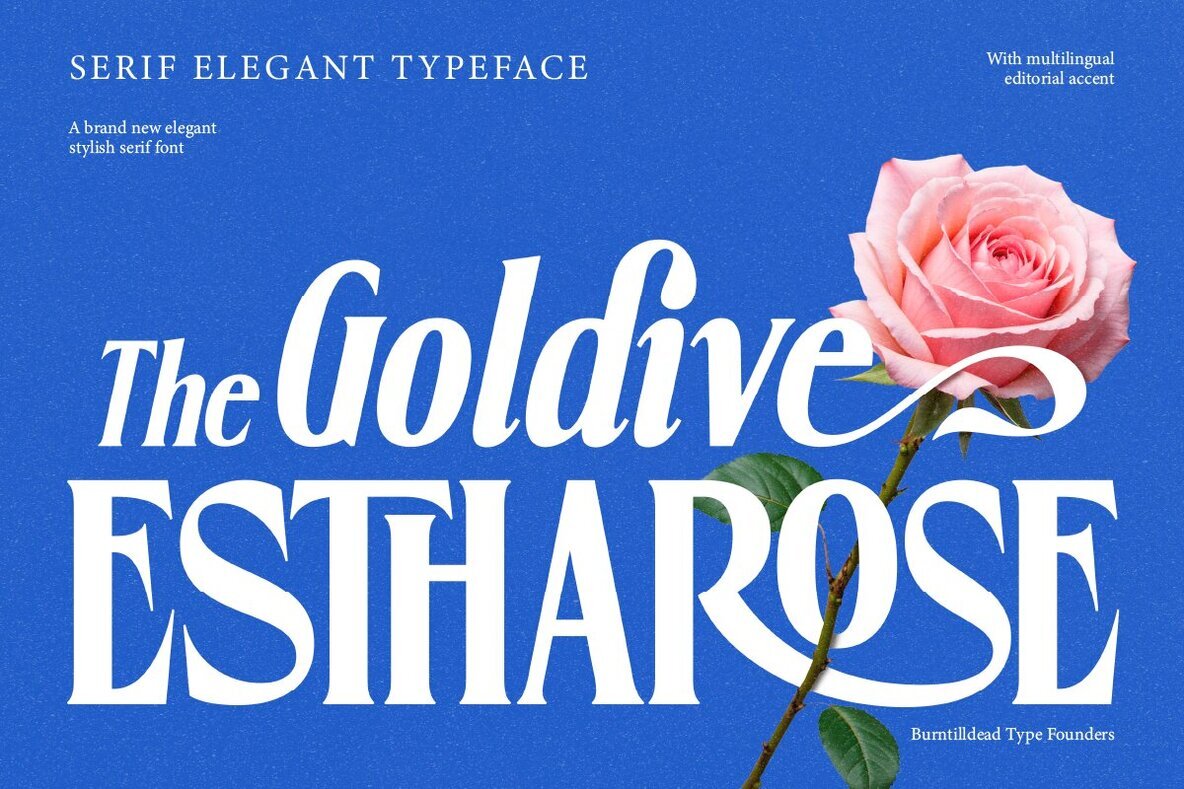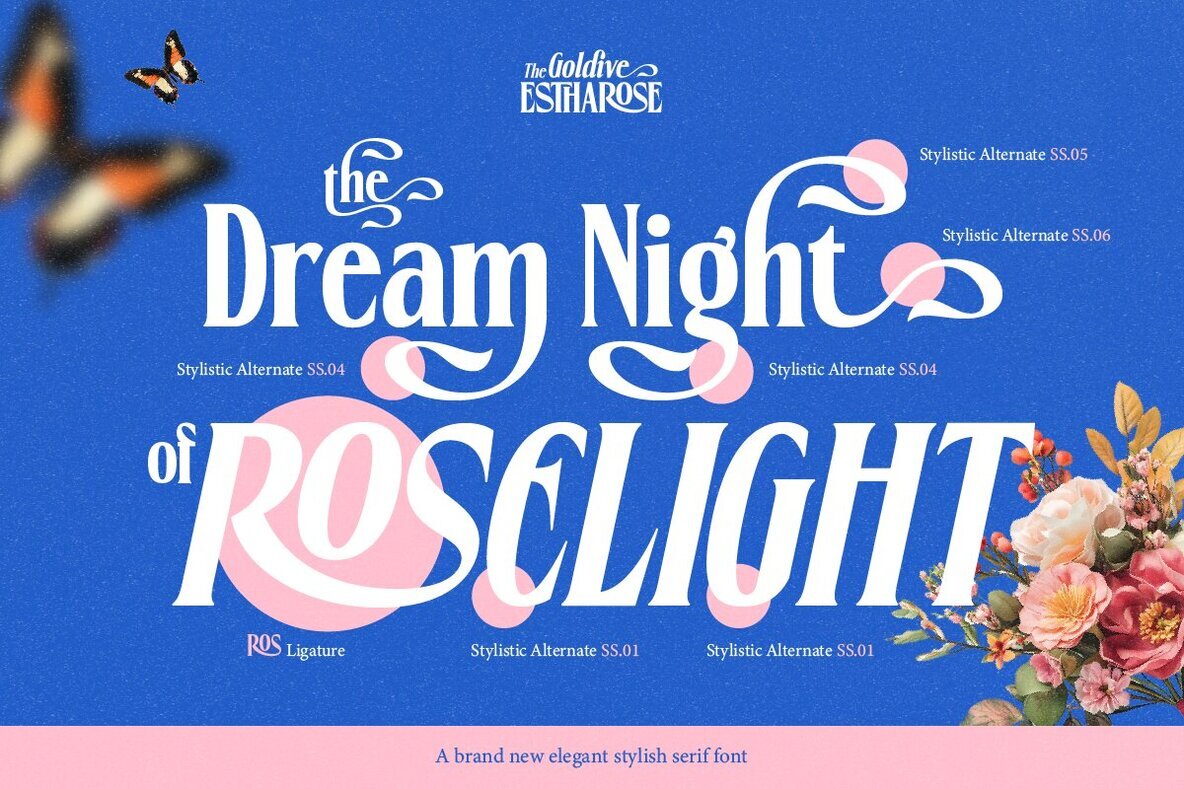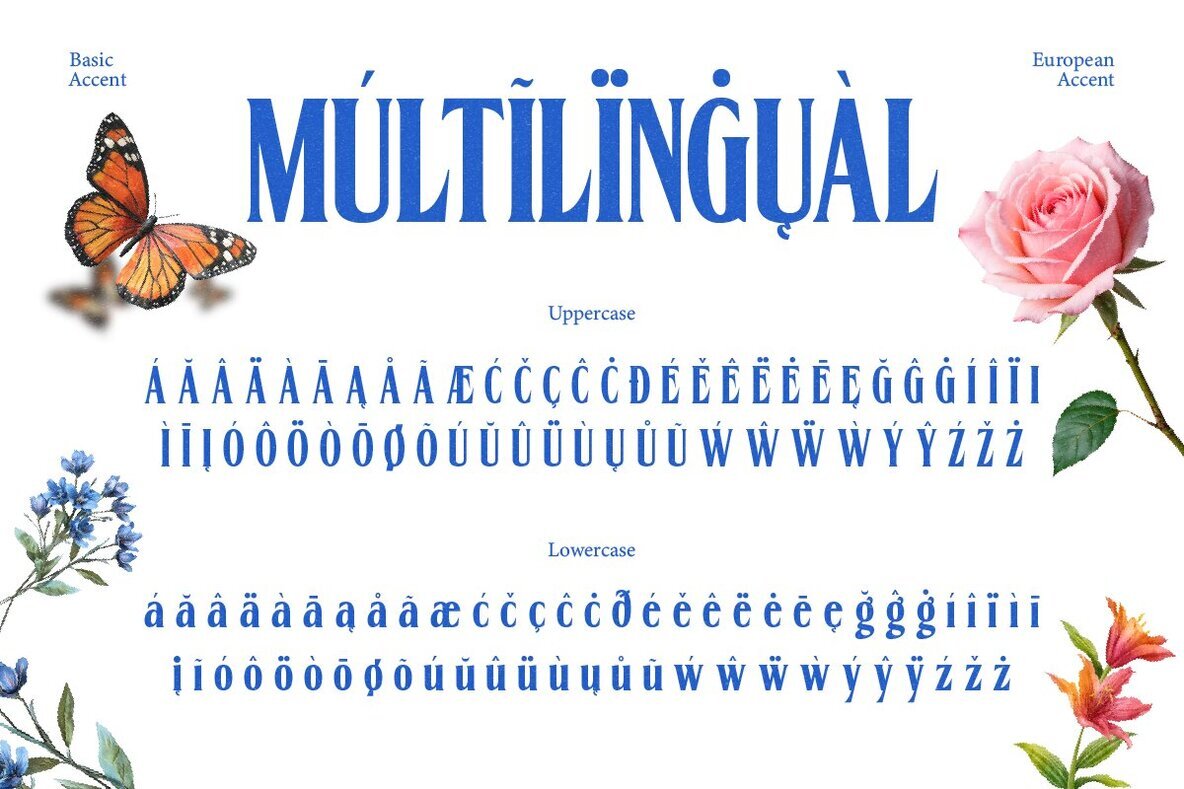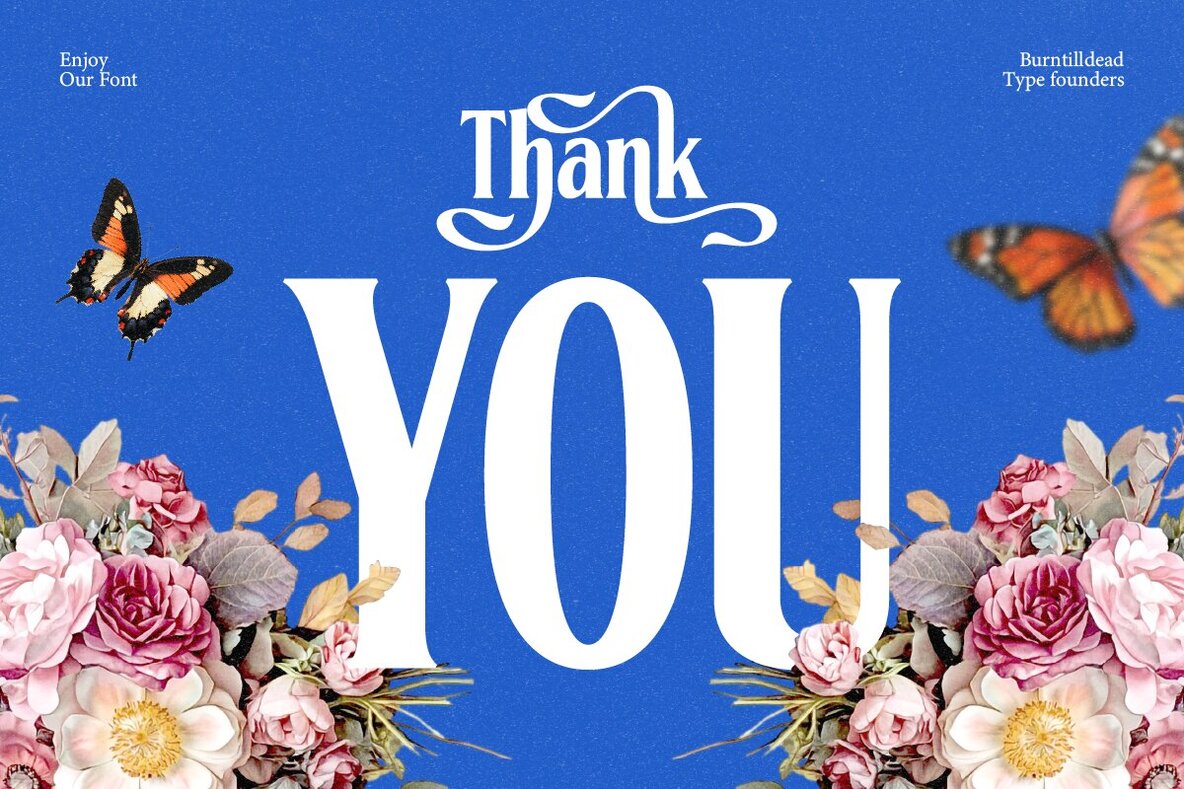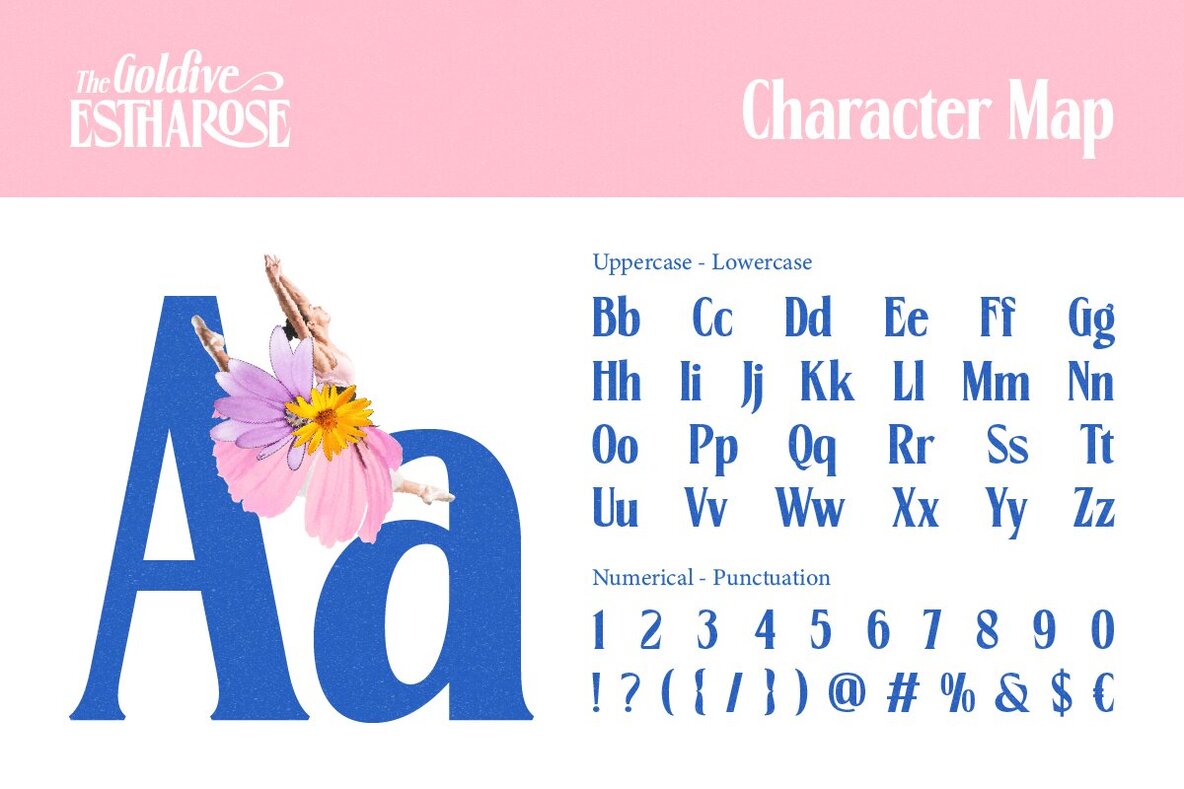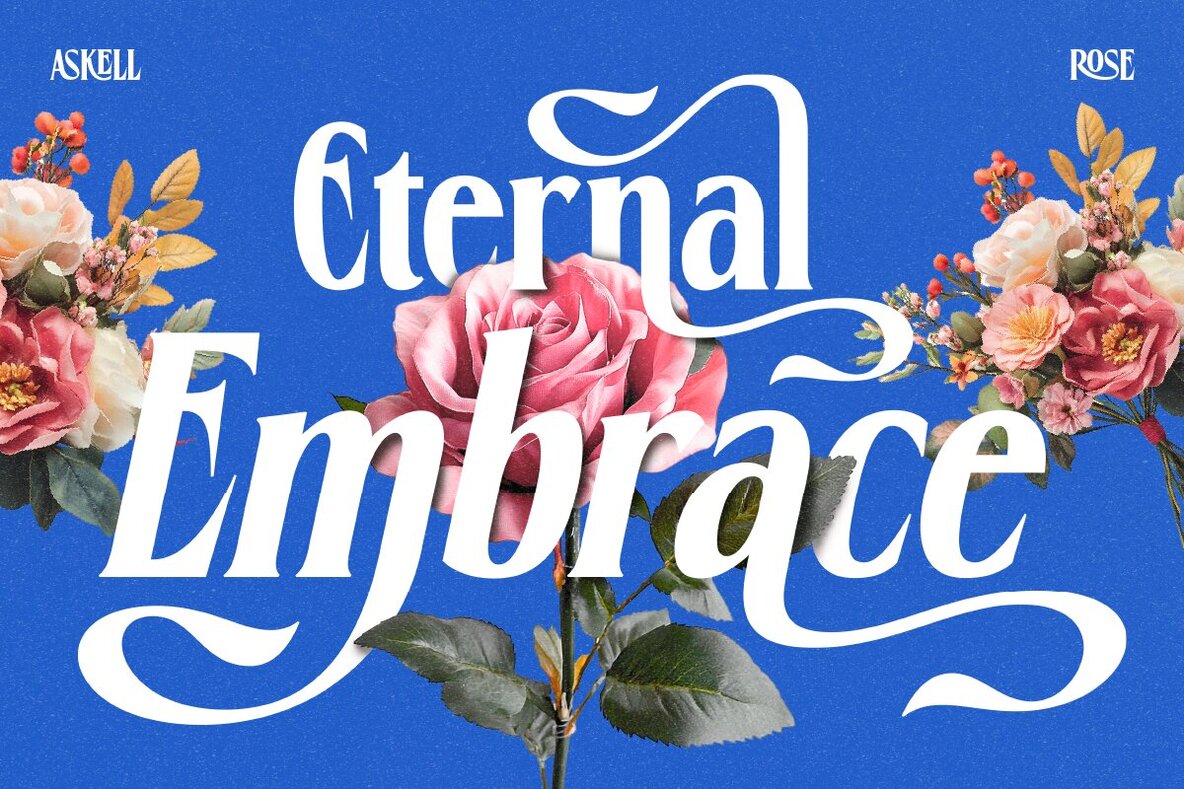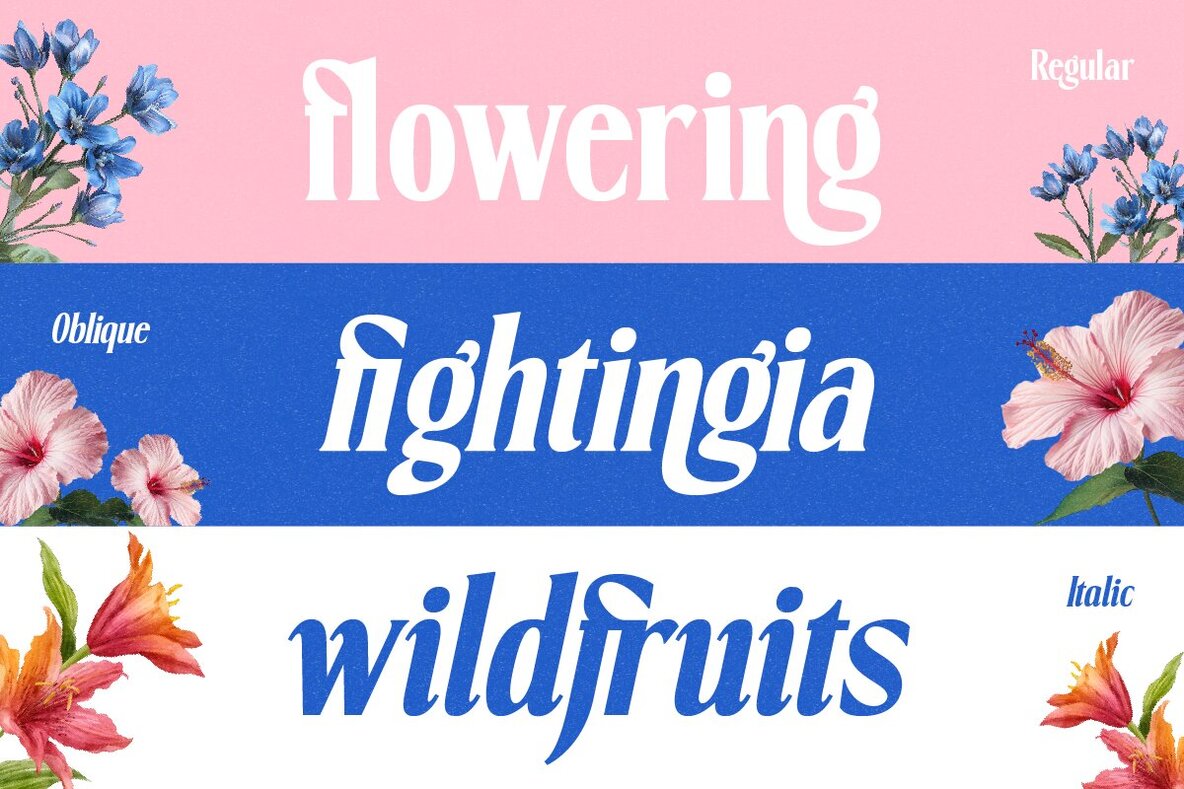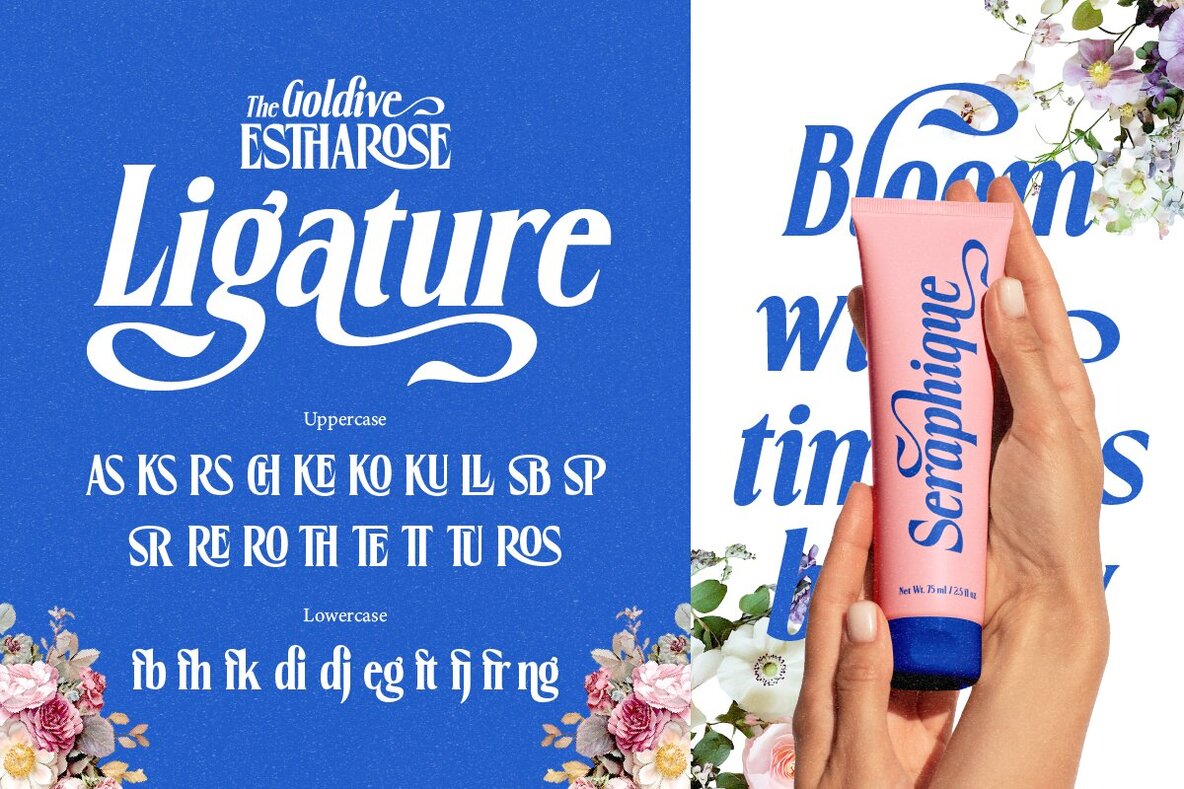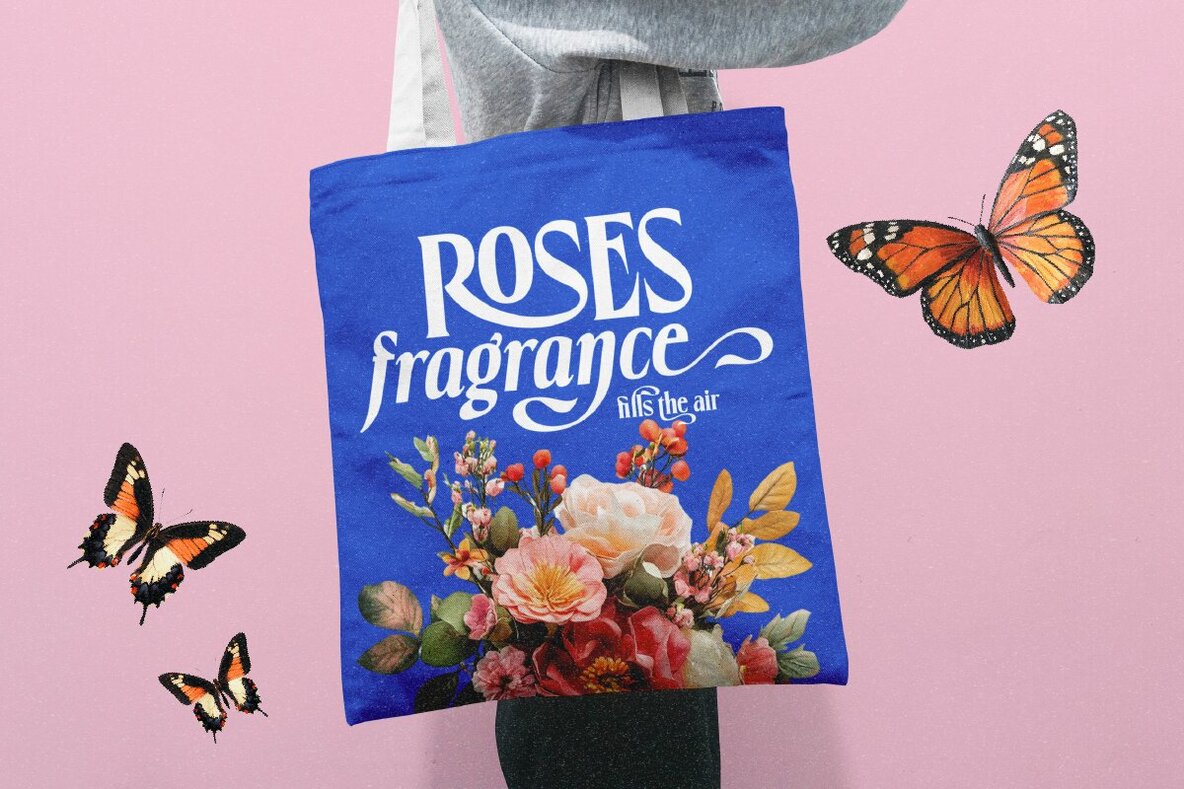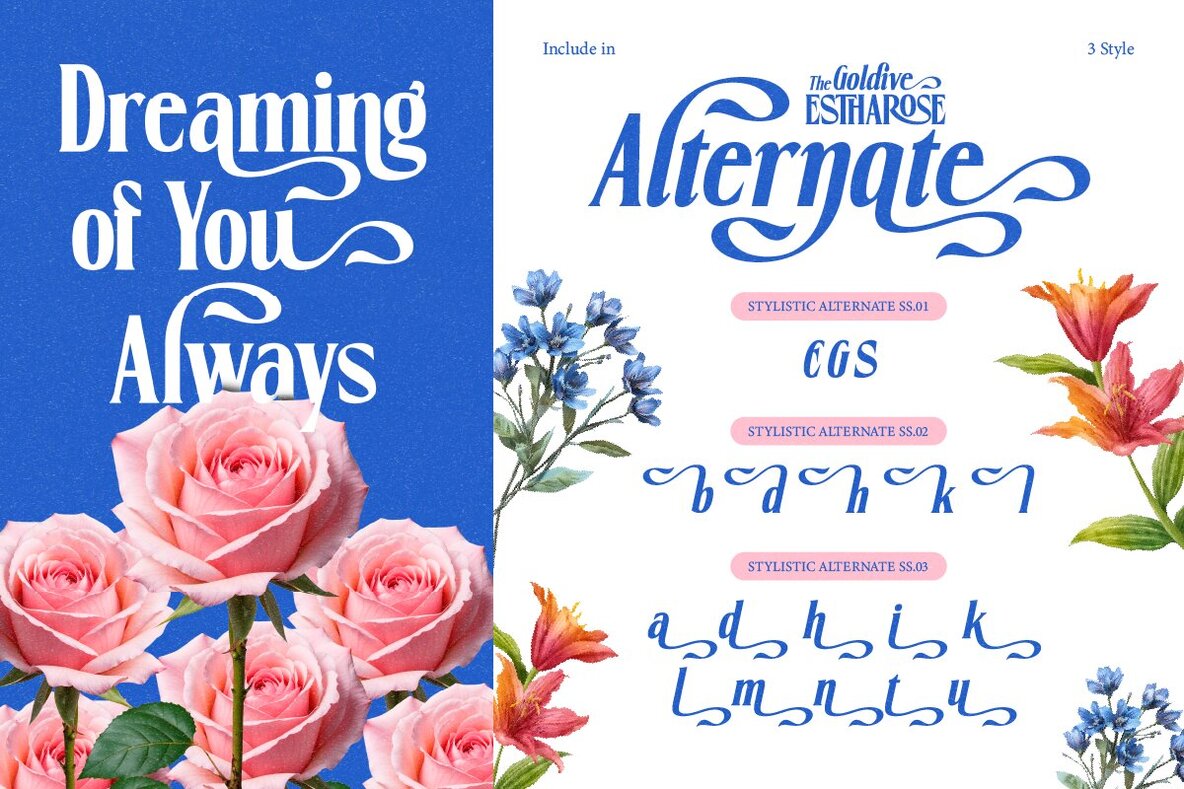
Goldive Estharose Font
Goldive Estharose offers a modern serif font that exudes sophistication and charm, ideal for elevating a wide range of projects. The refined curves and sharp details lend a timeless quality, making it suitable for logos, wedding invitations, fashion branding, magazine layouts, and elegant social media designs. For those seeking a romantic yet professional aesthetic, Goldive Estharose proves an exquisite choice. Its easy pairing with other fonts lets your designs stand out with grace and sophistication, offering the elegance your projects deserve.Goldive Estharose: Timeless Elegance Meets Modern Design
Versatile Styles and Support